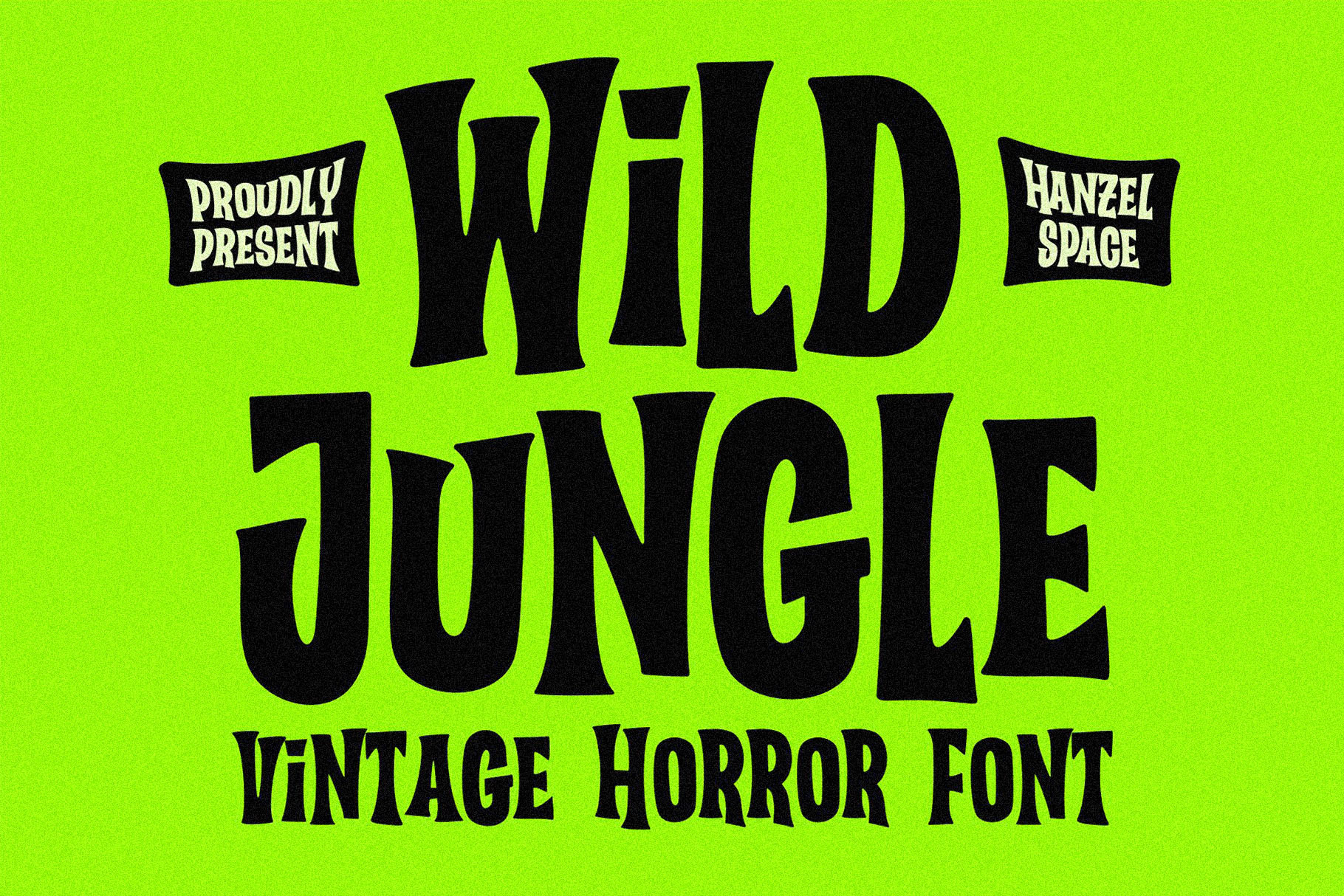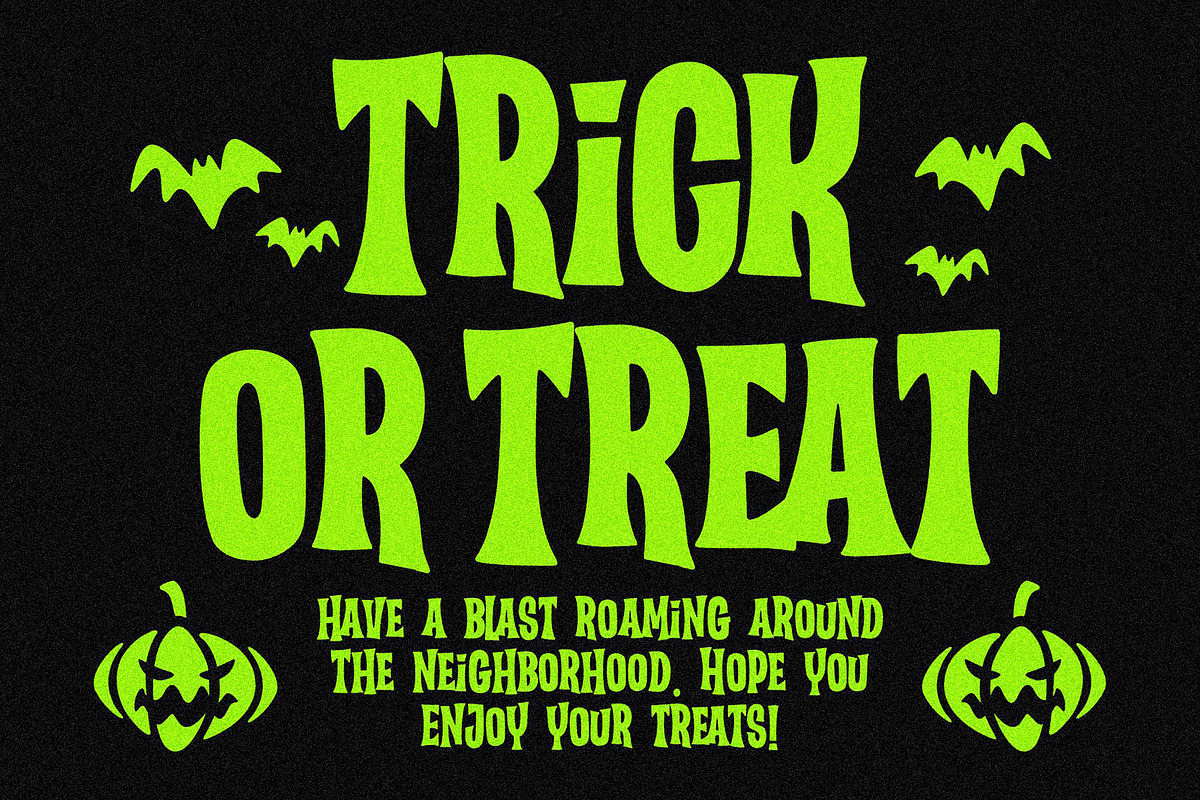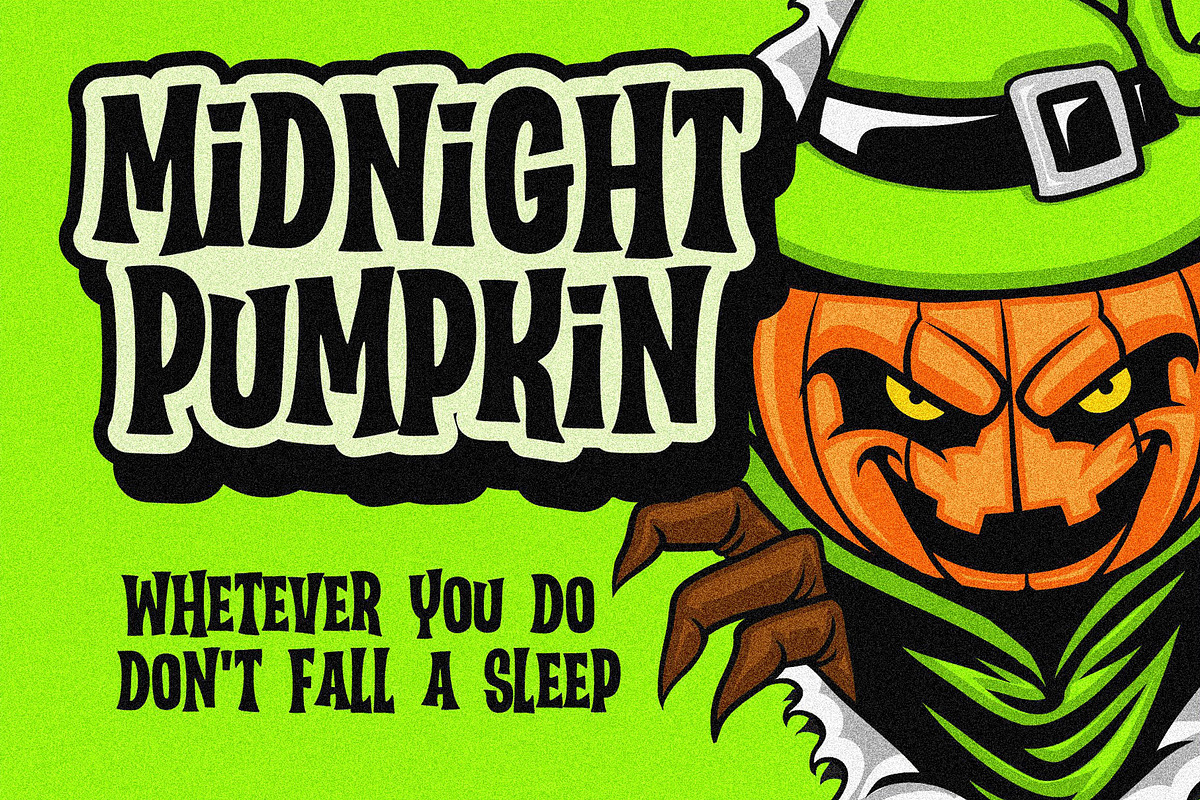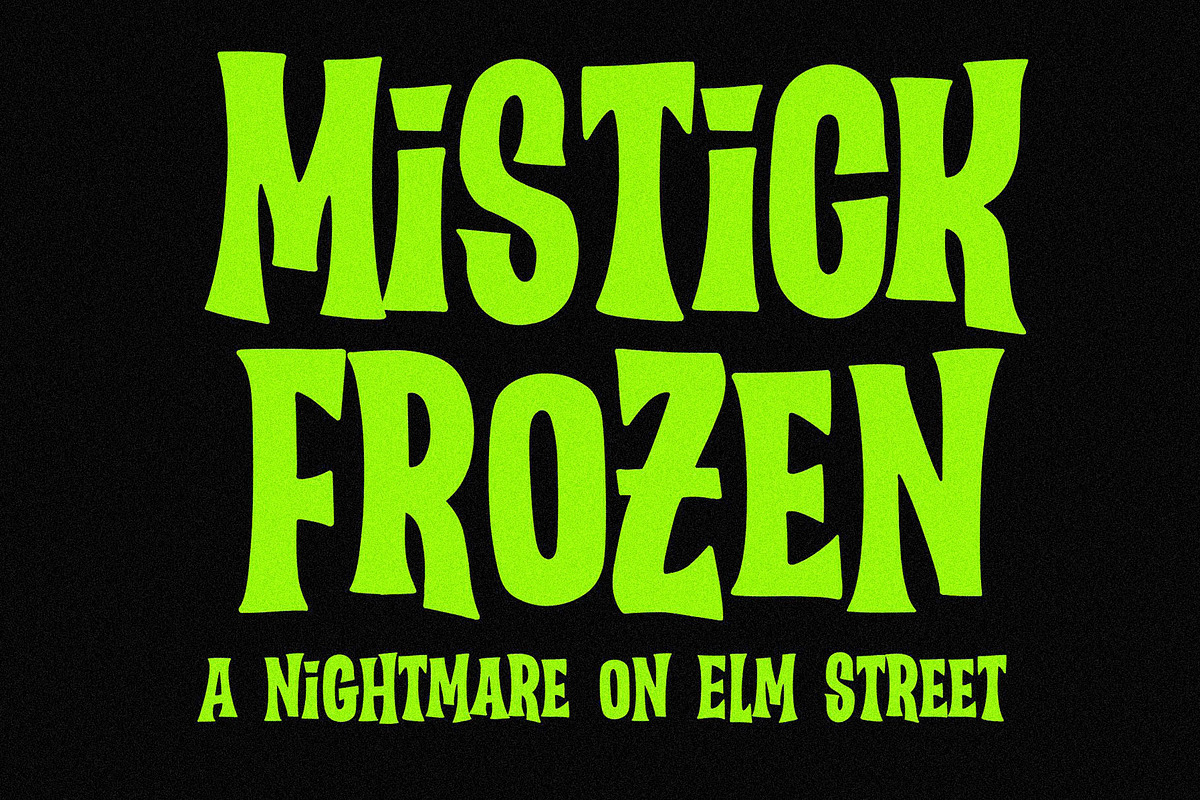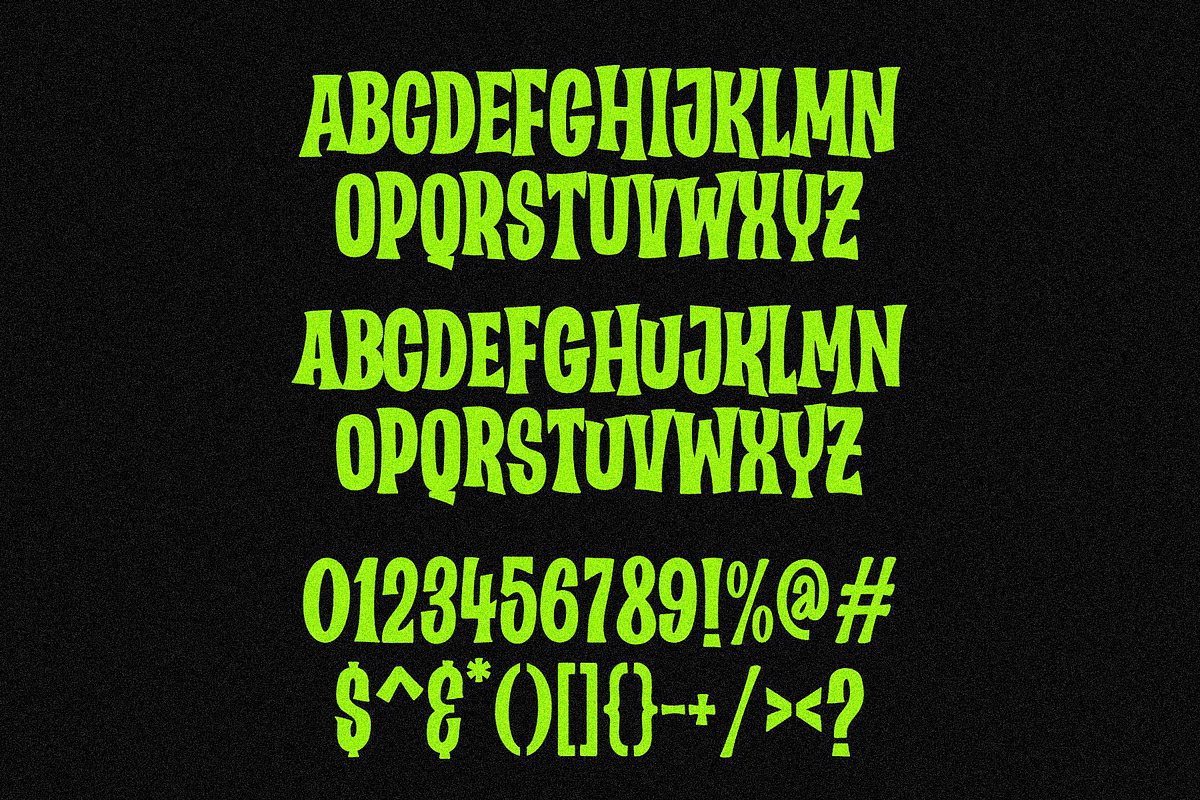
Wild Jungle – Vintage Horror Font
Introducing, Wild Jungle – a horror style font that has thick and irregular characters so it looks natural. This type of font perfectly made to be applied especially in logo, headline, signage and the other various formal forms such as invitations, labels, logos, magazines, books, greeting / wedding cards, packaging, fashion, make up, stationery, novels, festival, event, labels or any type of advertising purpose.
Stylistic Set